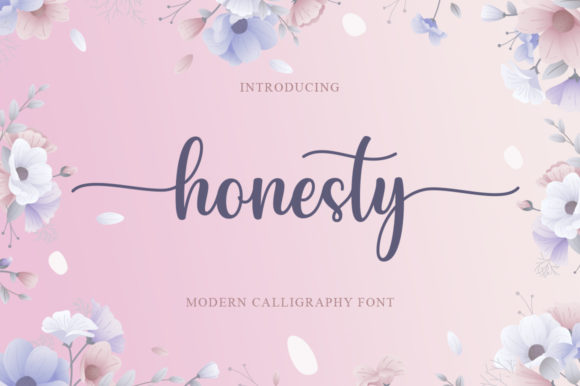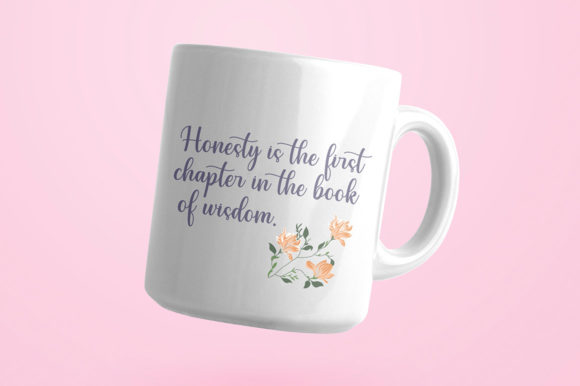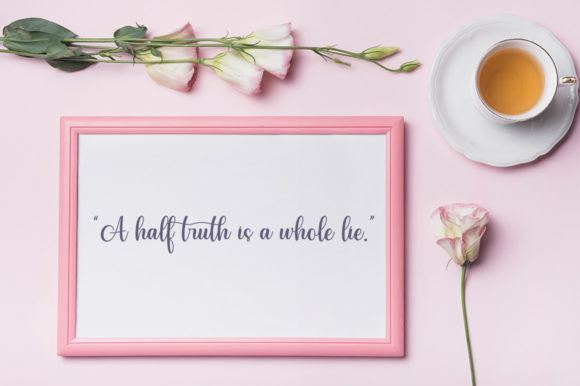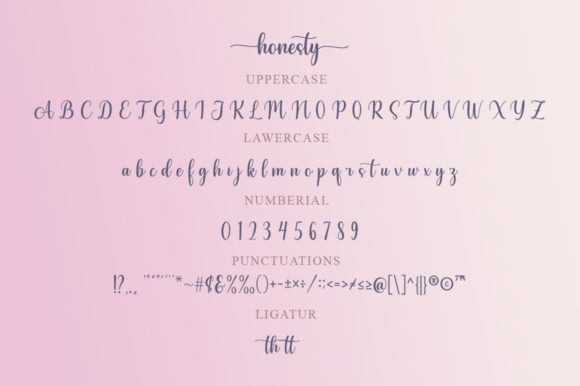
Honesty Font: Delicate Handwritten Calligraphy Font for DIY & Cricut
About the Honesty Font
Unleash your creativity with Honesty Font, a versatile font perfect for a wide range of applications. Honesty is a lovely and timeless handwritten font. It is the best choice for creating eye catching logos, branding and quotes. This font is PUA encoded which means you can access all of the glyphs and swashes with ease!
Honesty’s hand-drawn quality makes it ideal for projects requiring a touch of personal warmth, such as wedding invitations, handwritten-style logos, or short-form marketing materials like social media posts. It excels in headlines and short text blocks where its unique charm can shine. However, its less-than-optimal legibility makes it unsuitable for body copy or extensive text blocks.
Given its friendly and slightly informal character, avoid using Honesty in contexts demanding high professionalism or extreme formality (e.g., legal documents). Pair it with a clean sans-serif like Lato or Open Sans for a balanced contrast, or a classic serif like Garamond for a touch of traditional elegance. These pairings create visual harmony while maintaining readability.
The font’s overall personality is approachable and inviting, yet sophisticated. It works best for brands aiming for a personable and authentic feel.
Honesty Font Example